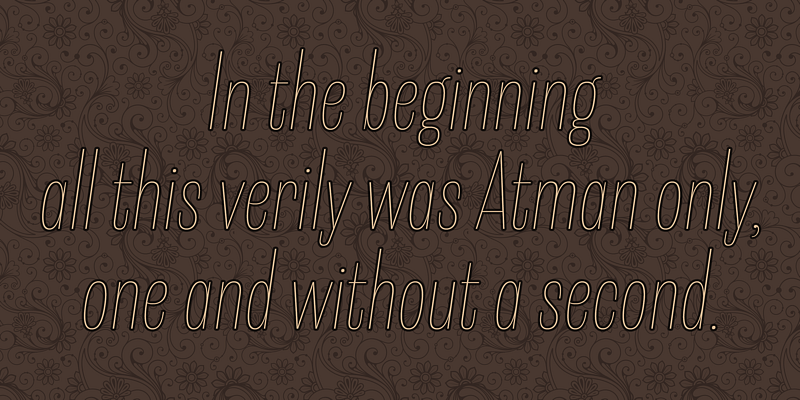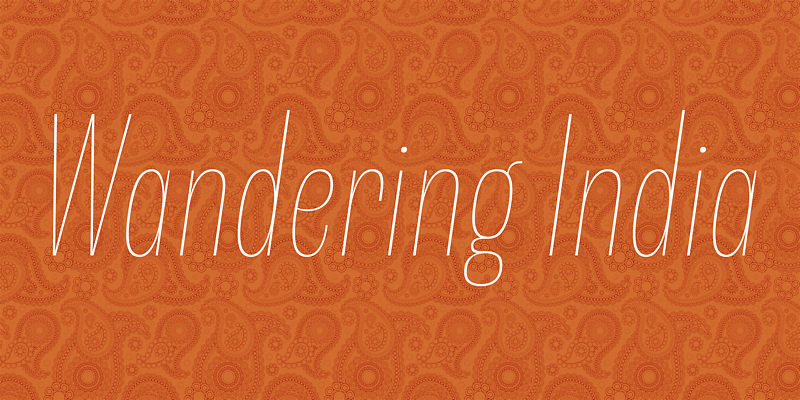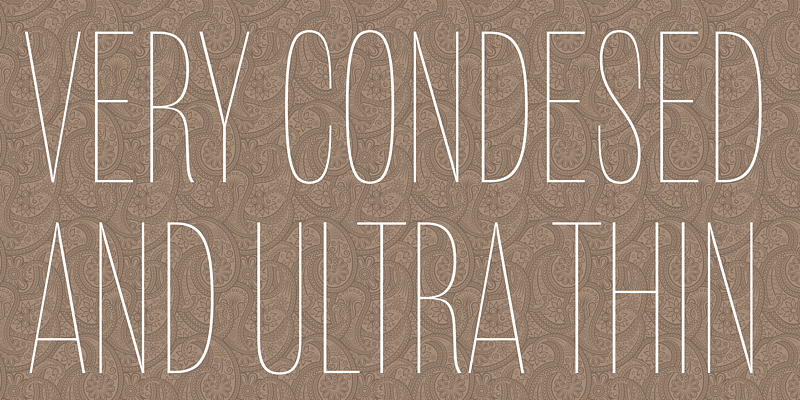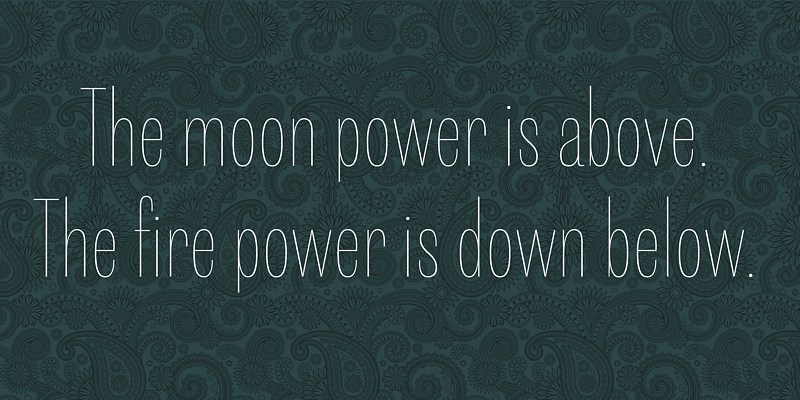
Shiva font family is very narrowed family for text and titling.
Even though shiva have very thin strokes, they give strong, impactive and dignified image.